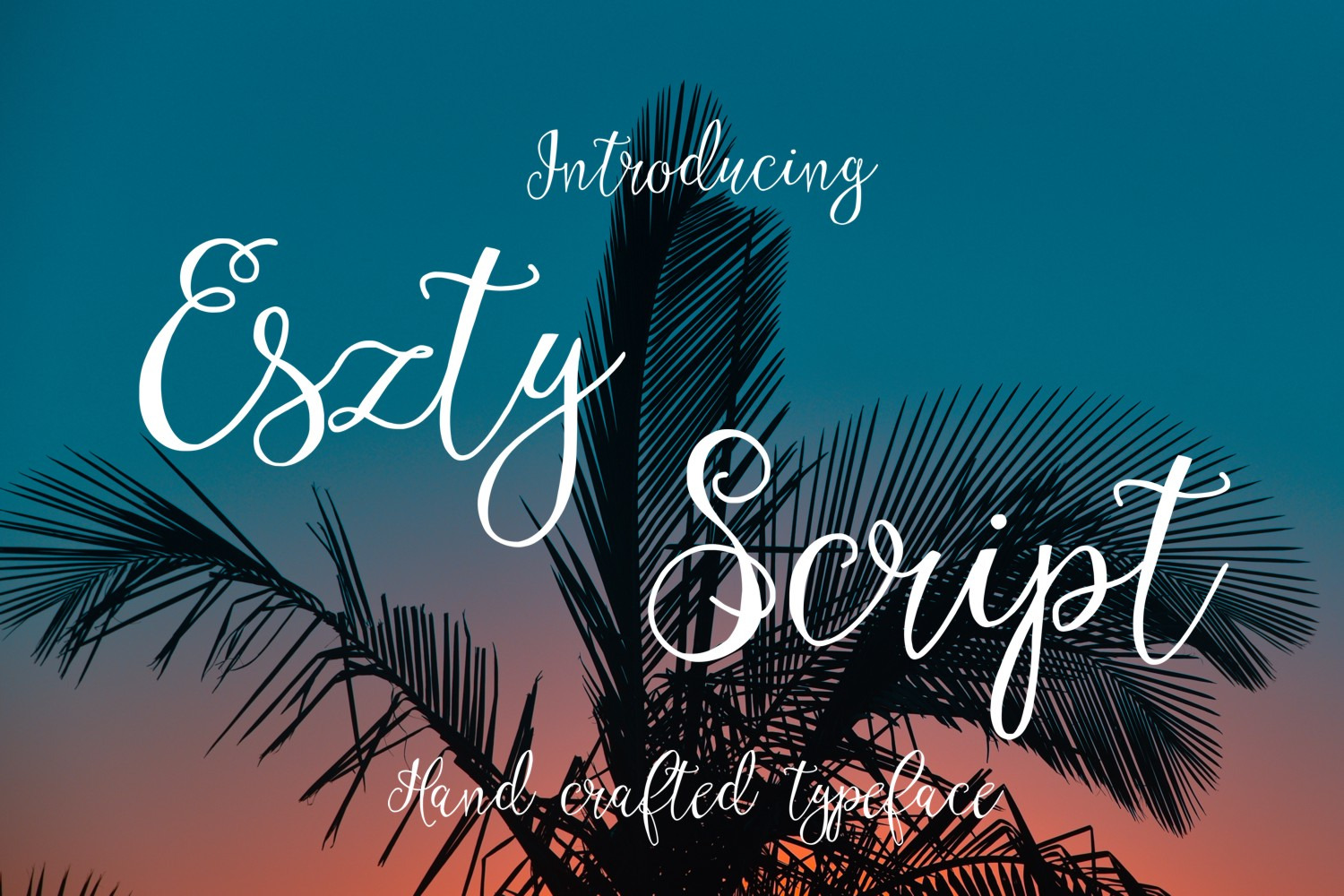
Eszty Script Font
Introducing Eszty Script hand crafted typeface.
Multi purpose use as it has upper cases, lower cases, numbers, punctuations and currency symbols.
Eszty Script is perfect for wedding stationeries, product packaging, branding projects, homeware designs - or simply as a text overlay to any background image